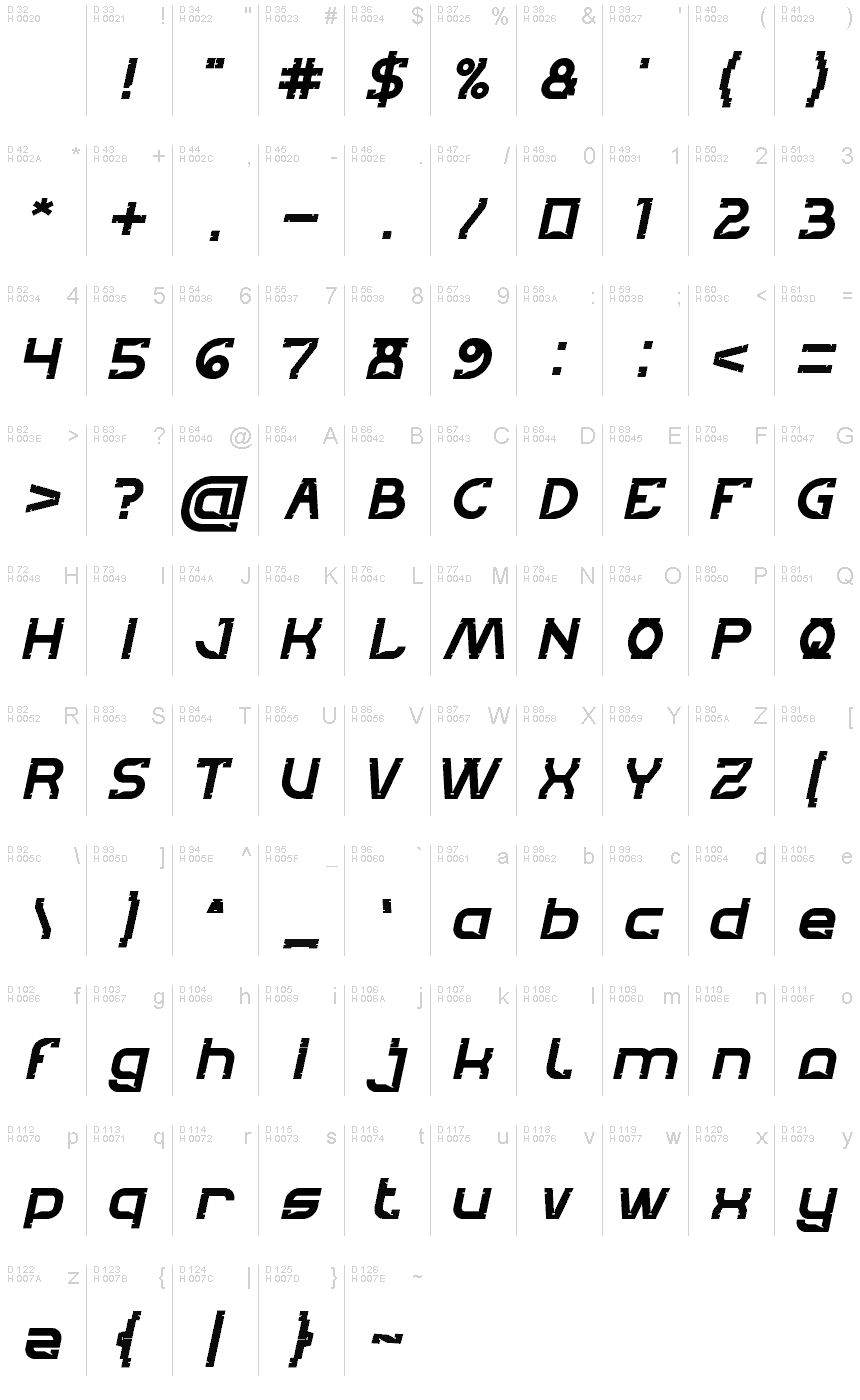
Lets Get It on Bold Italic
Elegant and futuristic, the "Lets Get It on" font by Weknow exudes a bold, captivating presence. Featuring an expanded, italic design, this display typeface commands attention with its sharp, angular lines and sleek, modern sensibilities. The font's striking silhouette effortlessly blends retro-futuristic aesthetics with a touch of rebellious energy, making it a standout choice for designers seeking to craft bold, attention-grabbing visuals.
This versatile font lends itself well to a variety of applications, from dynamic branding and packaging design to eye-catching event promotions and editorial layouts. Its expansive character set and legible letterforms ensure seamless integration across both digital and print mediums, allowing designers to elevate their projects with a touch of futuristic flair.